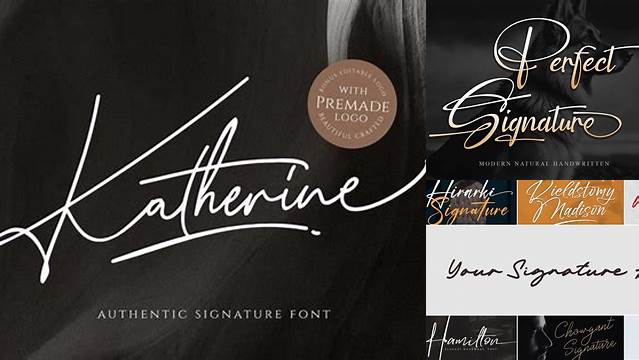
Free Signature Fonts For Photoshop: Your Ultimate Guide
Hey guys! Are you looking to add a personal touch to your designs? Want to make your graphics feel more authentic and unique? Well, you're in the right place! This article is all about free signature fonts for Photoshop, and trust me, they can be a game-changer. Imagine instantly transforming your text into elegant script, mimicking your own signature or creating a stylish handwritten look. Let's dive deep into the world of signature fonts and how they can revolutionize your design projects. We'll cover everything from the best free fonts to how to install and use them effectively in Photoshop.
Why Signature Fonts are a Design Must-Have
So, why should you care about signature fonts? They offer a level of personalization and sophistication that standard fonts just can't match. Think about it – a beautifully crafted signature font can instantly elevate a design, making it feel more custom-made and professional. Signature fonts are particularly fantastic for branding, allowing you to create logos, watermarks, and social media graphics that truly represent your unique style. They're also perfect for invitations, greeting cards, and any project where you want to convey a personal touch.
In the crowded world of graphic design, standing out is key, and using a signature font is an easy way to do just that. It's like adding your personal stamp of approval to your work. Whether you are a seasoned designer or a complete beginner, signature fonts are an accessible way to enhance your projects. They’re easy to implement, and the impact they have on your design is remarkable. They add a touch of elegance and personality that can make your work stand out. Also, since we are focusing on free signature fonts, this is a cost-effective way to diversify your font library and experiment with different styles.
These fonts aren’t just for show, they have practical applications too. Imagine using a signature font to create a realistic watermark on your photos, protecting your work while adding a stylish element. Or consider crafting a stylish and memorable logo that accurately represents your brand. Signature fonts can really help to make your design project feel special. They are also a great way to add a human touch to your digital artwork, which can be especially effective for projects aiming to resonate with an audience. Moreover, with the wide range of styles available, from classic calligraphy to modern scripts, there's a signature font out there for every project. The use of signature fonts allows you to add character to your design, making it less generic and more personal. This enhances the visual appeal and helps communicate your brand's personality, which builds trust and recognition among your audience. Remember, it's the small details like these that take a design from good to great, so why not incorporate this amazing tool into your design toolbox?
Top Free Signature Fonts for Photoshop
- Great Vibes: This is a beautiful, flowing script font that is perfect for adding a touch of elegance and sophistication. It's ideal for invitations, greeting cards, and other designs where you want to convey a sense of classic style. Great Vibes has a natural, handwritten feel that makes it incredibly appealing.
- Dancing Script: A more casual script font, Dancing Script is perfect for adding a friendly and approachable feel to your designs. It’s great for social media graphics, blog headers, and any project where you want to appear approachable and fun. The slightly playful nature of this font adds a lively feel to any design.
- Pacifico: Inspired by the retro surf culture, Pacifico is a fun, bold signature font that adds a unique character. This font works well for projects that require a vintage or energetic aesthetic. Its distinct curves and slightly exaggerated strokes make it a memorable choice.
- Caveat: Clean and legible, Caveat is a great choice if you need a signature font that’s easy to read, even at smaller sizes. It’s ideal for body text or headlines where clarity is crucial. Caveat offers a balanced blend of style and readability.
- Playlist Script: With its slightly condensed and stylish appearance, Playlist Script gives a modern and stylish signature touch. It is great for fashion blogs, wedding invitations, and other designs that demand a fashionable aesthetic. This font gives a good balance of readability and elegance.
When choosing a signature font, think about the overall tone and message you want to convey. Do you want to be elegant, playful, or professional? Select a font that aligns with the personality of your project. The font you choose can really set the tone for your design, so choose wisely. Consider how the font will look on different backgrounds and sizes, and experiment with different font weights and styles to see what works best for your project. Ultimately, the best font for you is the one that fits your specific needs and helps you achieve your design goals.